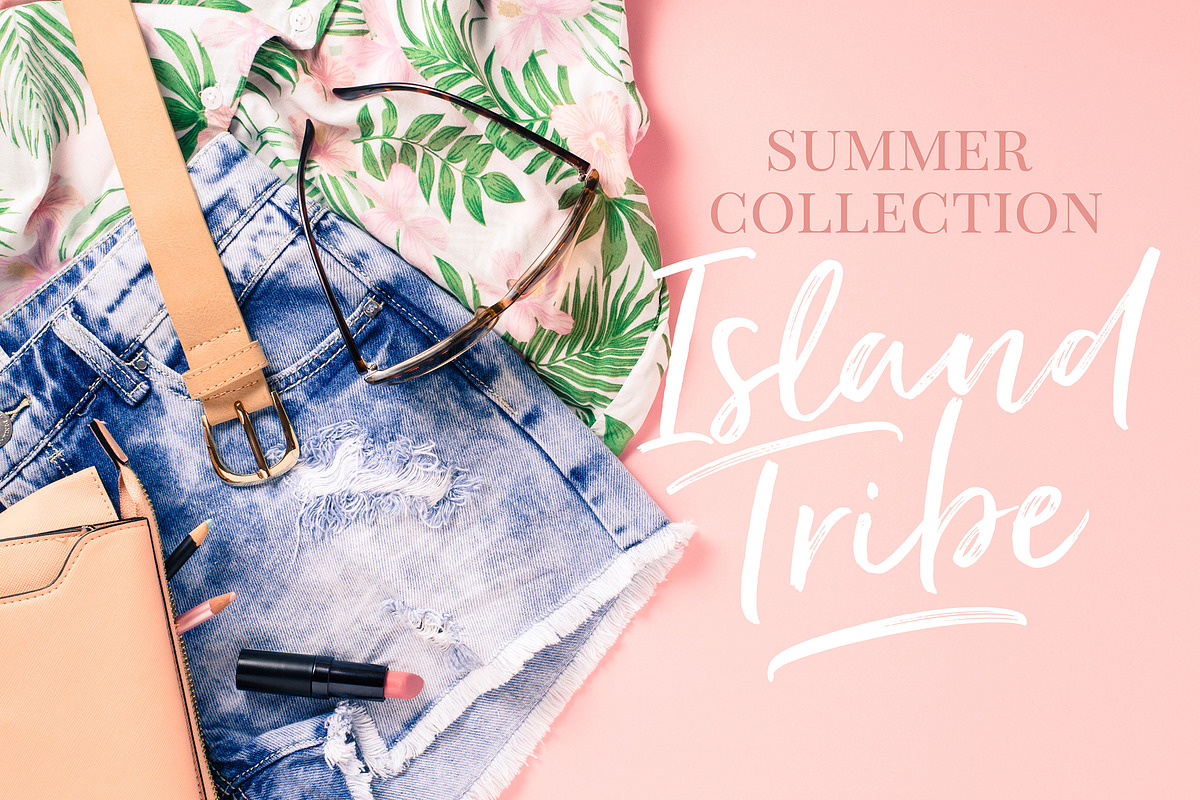
Bold, curvaceous and steadfast, Just Lovely & Extras is a casual dry brush font with a multitude of letter variations to make that perfect and unique design. It comes with an alternate set of uppercase letters, and 3 sets of lowercase letter alternates to ensure you get the look you are after.
To top it all off, Just Lovely comes with a complimentary dingbat font with a set of 62 swashes, catchwords, and doodles to bring your type designs to life!
Just Lovely comes in various styles – Regular, Slanted, and Wide Slanted – each with it’s unique personality to suit the look you are after. A Solid Version of the above three is also included.